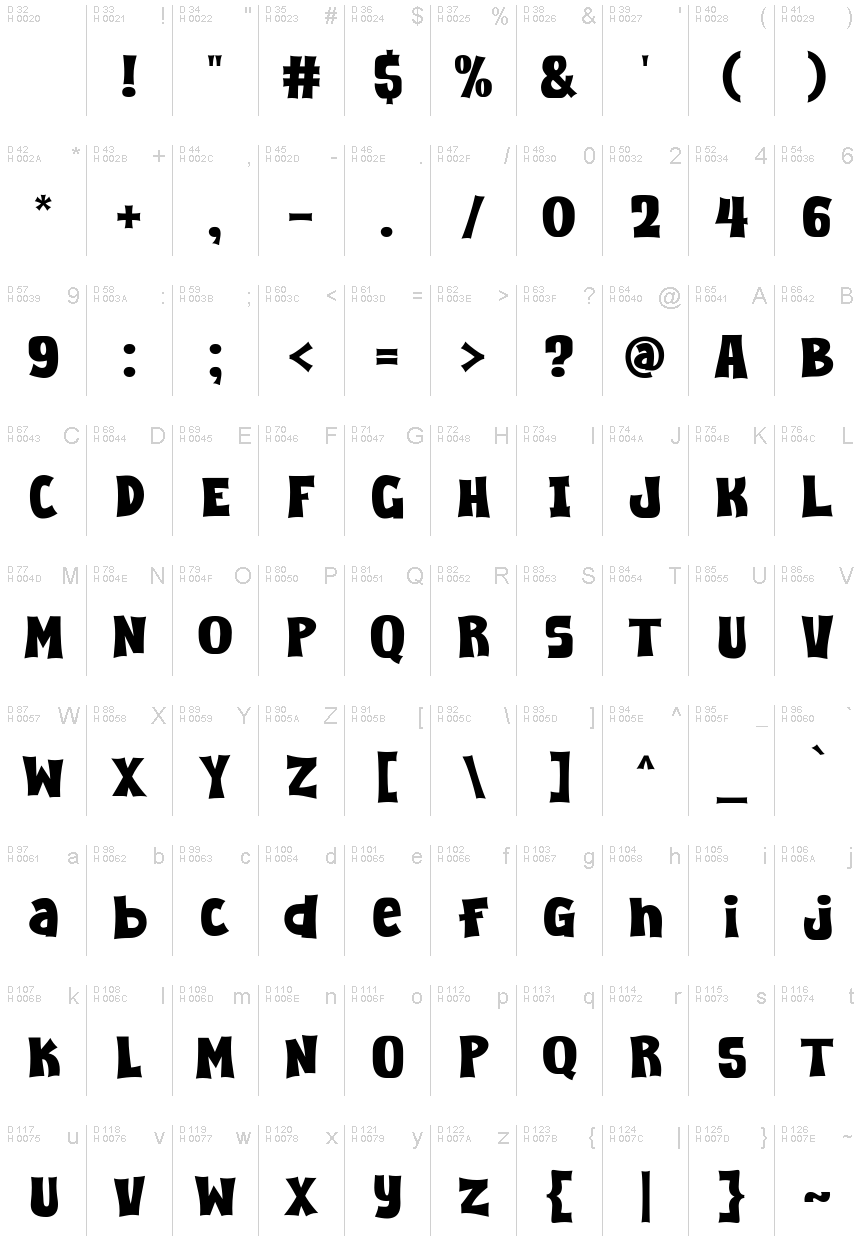
Super Friday
Super Friday, designed by fsuarez913, is a captivating display font that embraces the whimsical charm of cartoon aesthetics. With its bold, dynamic strokes and playful curves, this font exudes a sense of energy and playfulness, making it an ideal choice for projects seeking to capture the spirit of adventure and fun. The font's distinctive character shapes and balanced proportions create a visually striking impact, effortlessly drawing the viewer's attention and evoking a lighthearted, carefree mood.
Super Friday's versatility shines through its ability to adapt to a wide range of design contexts, from vibrant event branding and lively children's illustrations to eye-catching social media graphics and bold typographic compositions. Its playful personality lends itself particularly well to packaging design, product labeling, and recreational applications, where its unique flair can elevate the overall aesthetic and create a memorable, engaging experience for the audience.